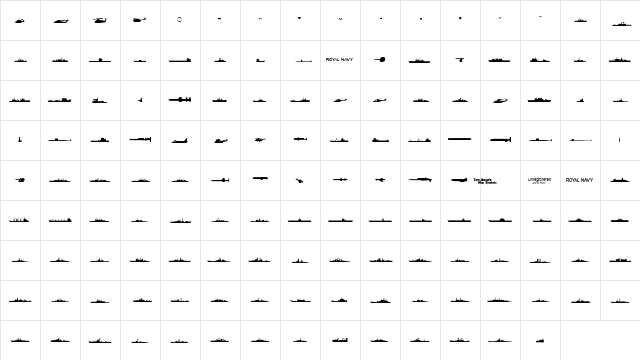
Ships Regular
Design Context for Ships Typeface
Ships is a composed and adaptable typeface that performs quietly and consistently across a wide range of design contexts.